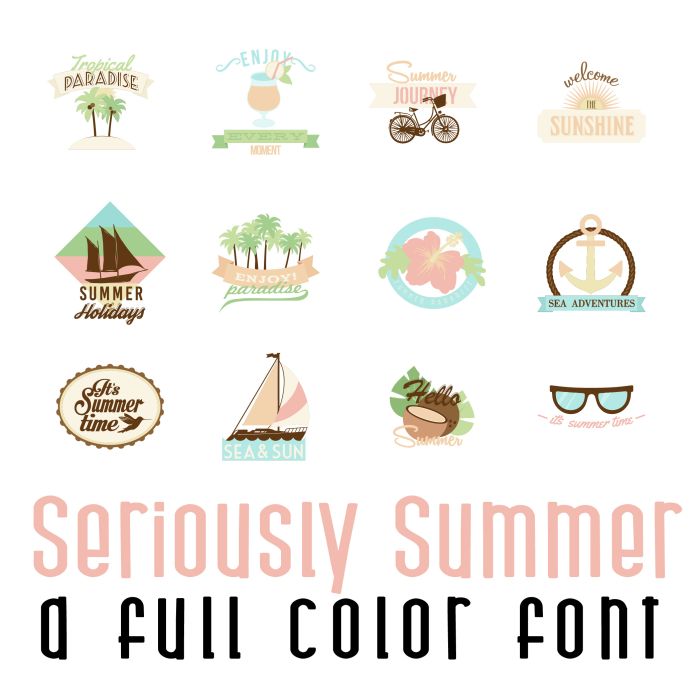
This fun full color font features 26 different iconic summer imagery. Perfect for cards, crafts, gifts, decor, scrapbook pages, planner stickers, and more!